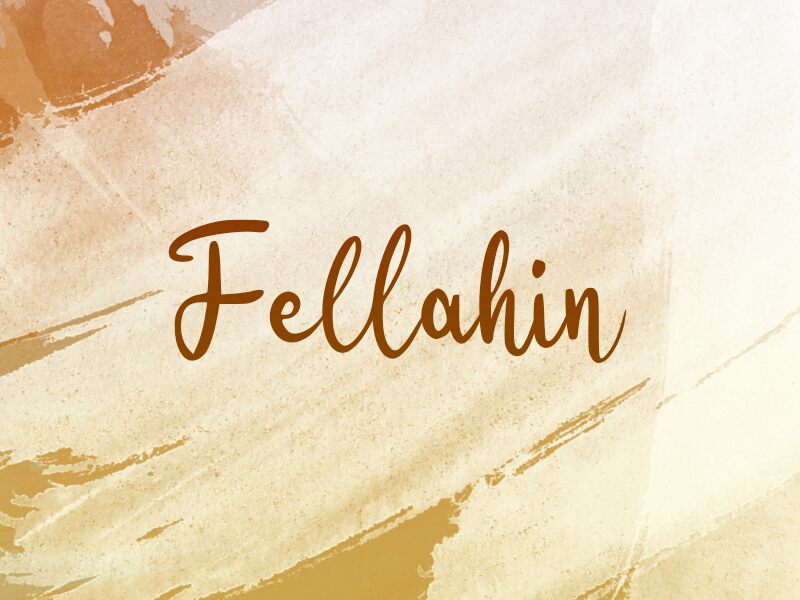
Fellahin
Fellahin, designed by wep, exudes the charm of a handwritten typeface with its semi-light weight that provides an air of casual elegance. The fluidity of its strokes and the subtle variation in line thickness invite a sense of personal touch and warmth to any project. This font's aesthetic appeal lies in its balance between legibility and stylistic flair, making it an ideal choice for designs that require a humanistic feel without sacrificing readability.
Crafted with versatility in mind, Fellahin's style aligns effortlessly with a wide range of creative endeavors. From branding to editorial design, this typeface can infuse your work with an intimate yet professional quality that stands out. Its handwritten nature lends itself particularly well to invitations, personalized stationery, and boutique packaging where a touch of individuality is key. Embrace the distinctiveness of Fellahin for projects that demand both character and clarity.